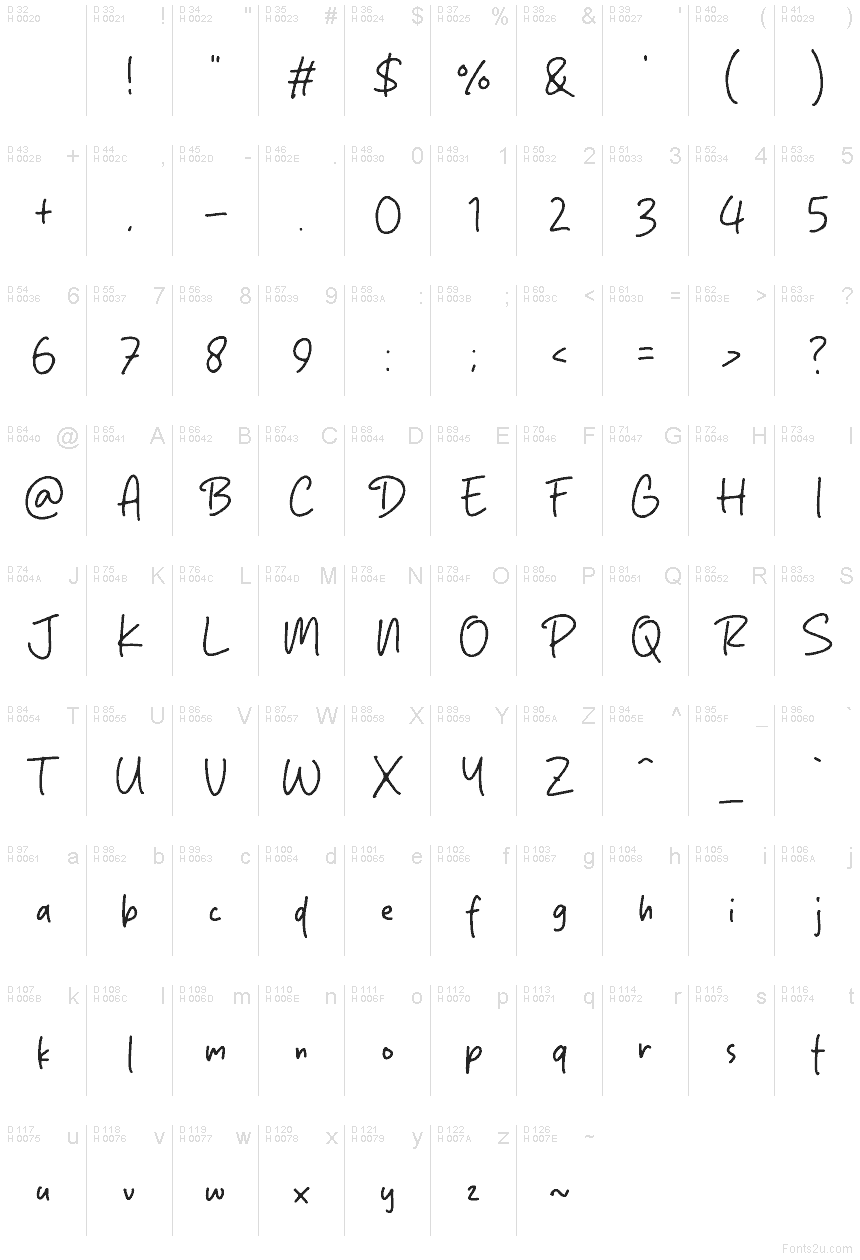
Rushing Shine
Rushing Shine font by MJType embodies casual elegance with its handwritten style and light weight. It offers expressive strokes and a modern aesthetic, adding a personal touch to designs. The free handwritten font is the perfect combination of creativity and uniqueness.